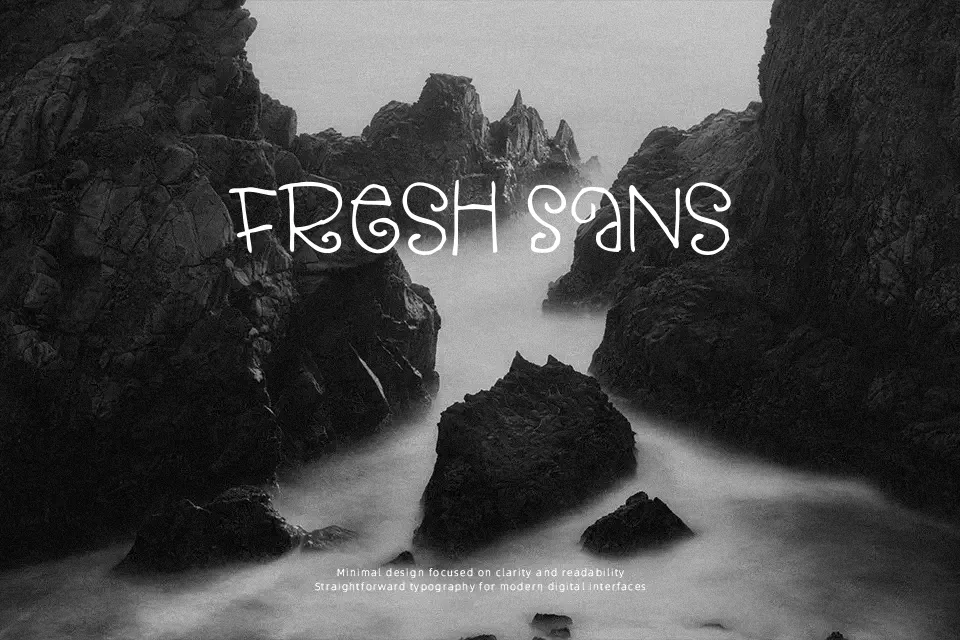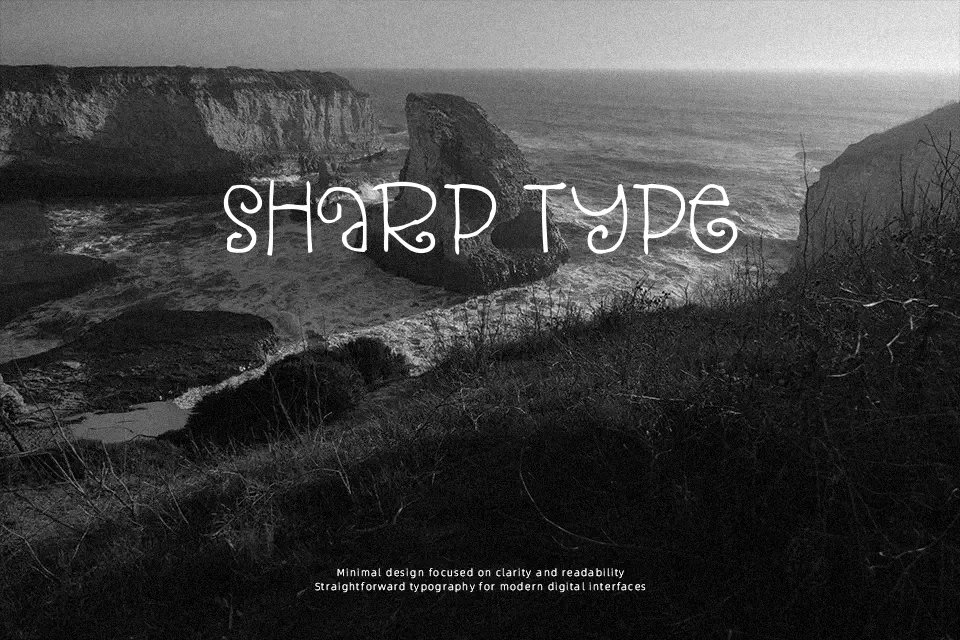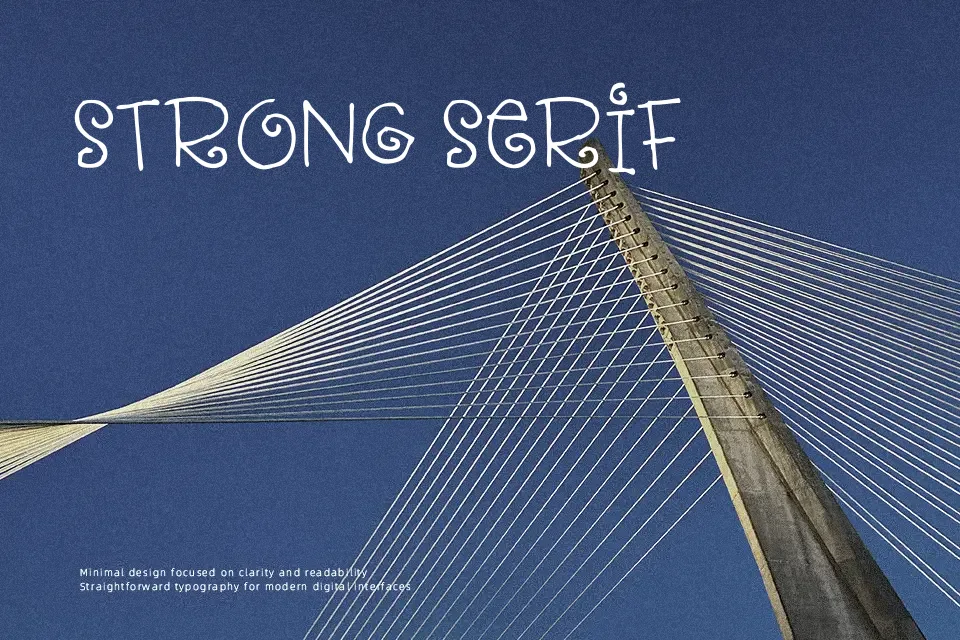
Strawberry Gossip Font
Strawberry Gossip Font uses irregular handwritten letterforms with curling strokes, varied proportions, and a loose decorative rhythm. The design is most effective in short words or large headline settings, where its distinctive shapes remain easy to notice and the spacing can breathe. Its lively forms suit playful packaging, informal posters, and expressive logo treatments rather than structured editorial work. The typeface has a deliberately uneven visual texture, so it reads as a display face rather than a neutral text tool. Decorative details are likely to lose clarity in small sizes or tightly set copy.
Best For: playful product packaging,poster headlines,casual logo treatments,social media graphics
Perfect for headline, logo, and packaging, with a artistic and decorative style.